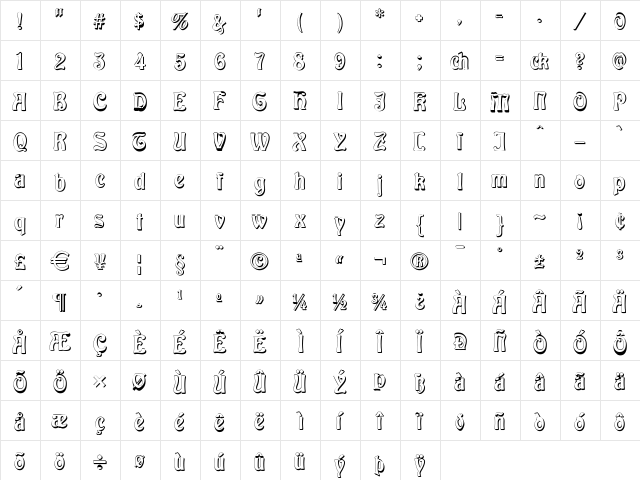
Baldur Shadow Regular
Design Context for Baldur Shadow Typeface
Baldur Shadow is built around its visual character rather than neutral utility — its distinctive forms are designed to make an impression at display sizes.
Font Pairing: Pair with a clean neutral sans-serif for body copy to let Baldur Shadow's character lead without overwhelming the composition.
Pro Tip: Use Baldur Shadow exclusively at display sizes — it was designed to be seen, not read at length. Let a neutral companion handle body copy.